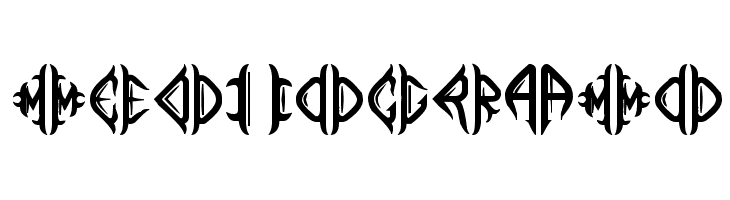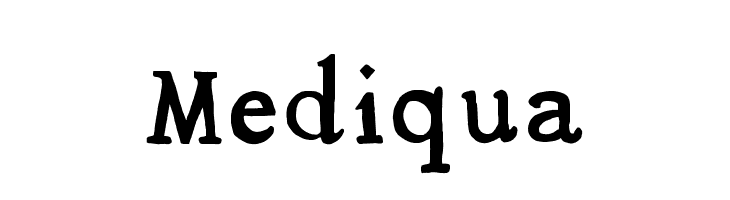
• Medinah schriftart
• medinascript schriftart
An elegant script font with high contrast and flowing, cursive style.
• medinascript schriftart
An elegant script font with fluid strokes and high contrast, perfect for sophisticated designs.
• Medio schriftart
A classic serif font with high contrast and elegant strokes.
• Mediogramo schriftart
An ornate, gothic-style font with intricate, angular designs.
• Mediogramo schriftart
A bold, gothic-style font with intricate, symmetrical designs and sharp angles.
• Mediqua schriftart
A vintage, handcrafted serif font with a distressed look.
• Medish Deco PERSONAL USE ONLY schriftart
An ornate and decorative font with intricate swirls and flourishes.
• Medish Script PERSONAL USE ONLY schriftart
An elegant script font with fluid, interconnected strokes and graceful curves.
• Medistencil schriftart
A bold, stencil-style font with a rugged, industrial look.